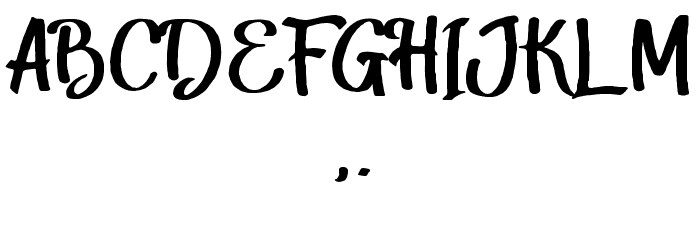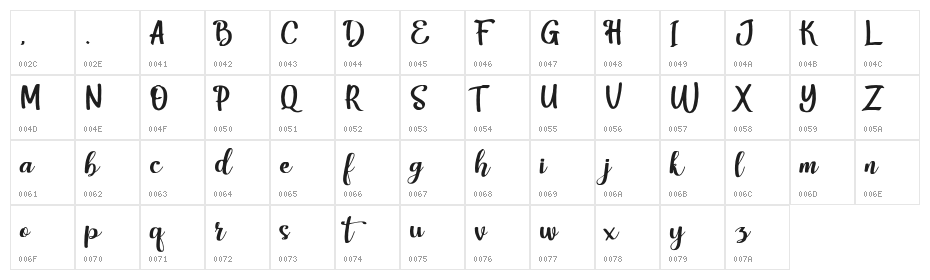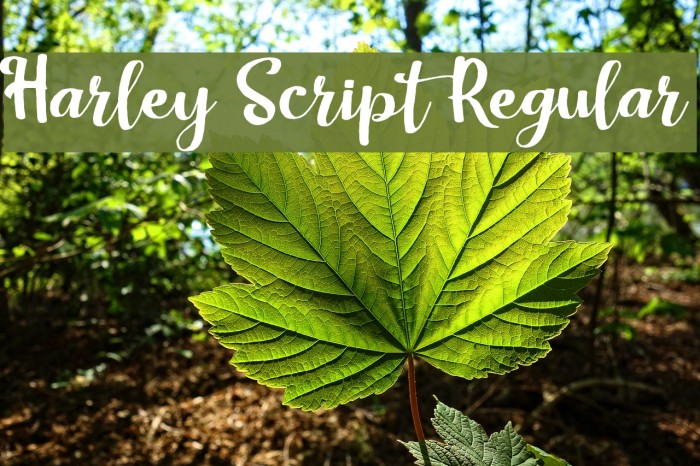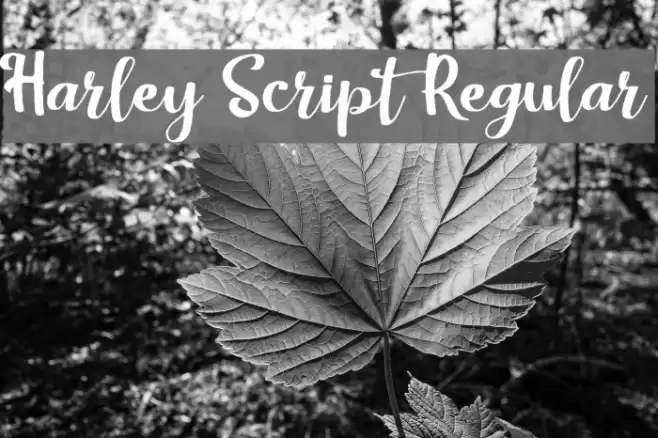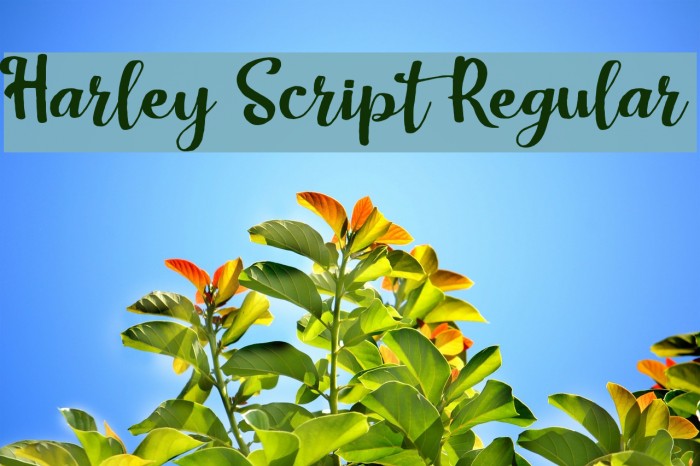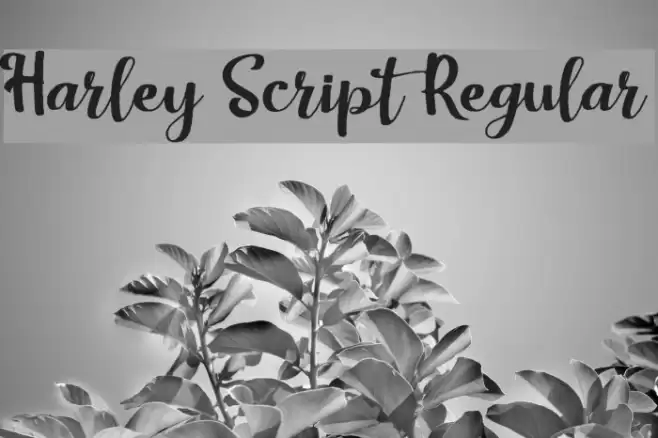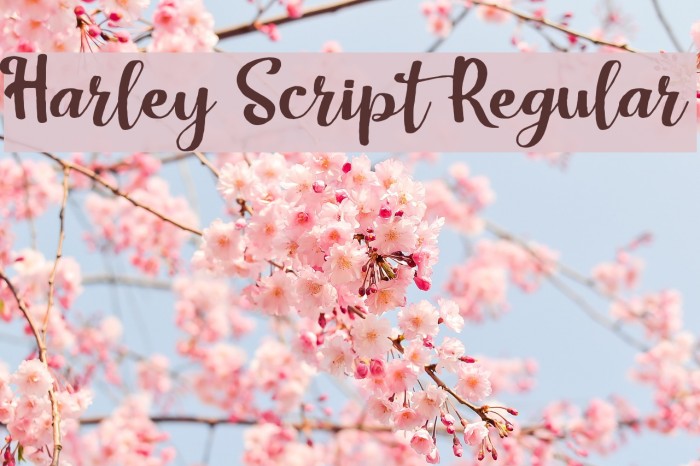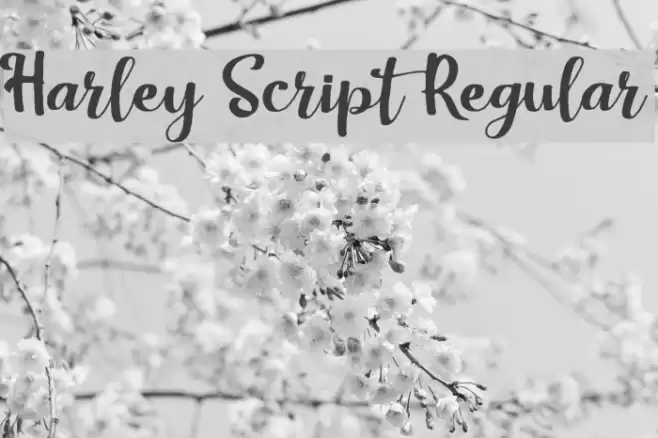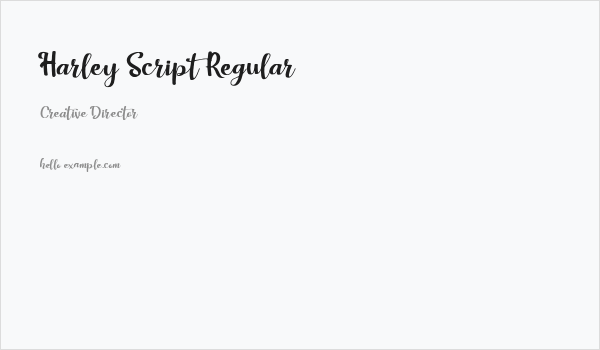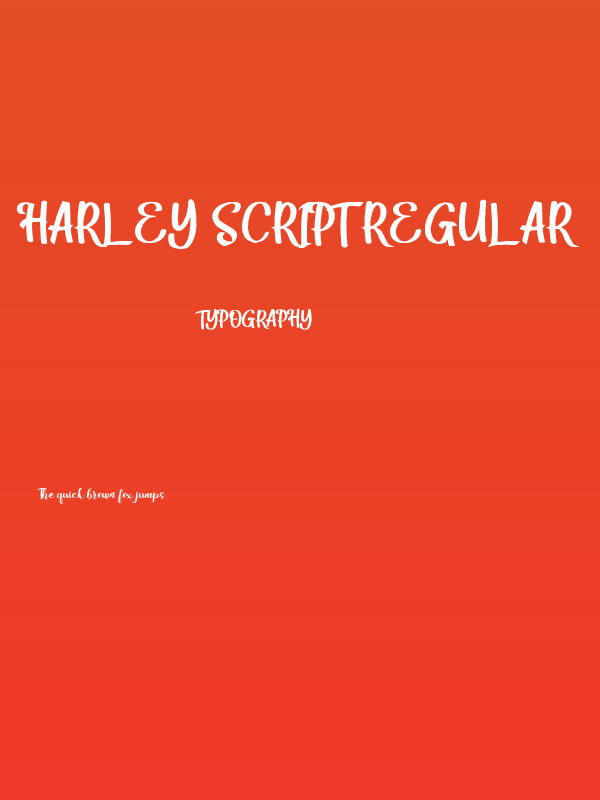
Harley Script Regular Font
Harley Script Regular Description
This font exudes a playful and energetic vibe with its bold, flowing script style. The characters are designed with a hand-drawn aesthetic, featuring smooth curves and a slight slant that gives it a dynamic appearance. The uppercase letters are particularly striking, with exaggerated loops and swashes that add a touch of elegance. The lowercase letters maintain a consistent flow, making it ideal for creating a cohesive look in text. The overall design is both artistic and legible, making it suitable for a variety of creative projects.